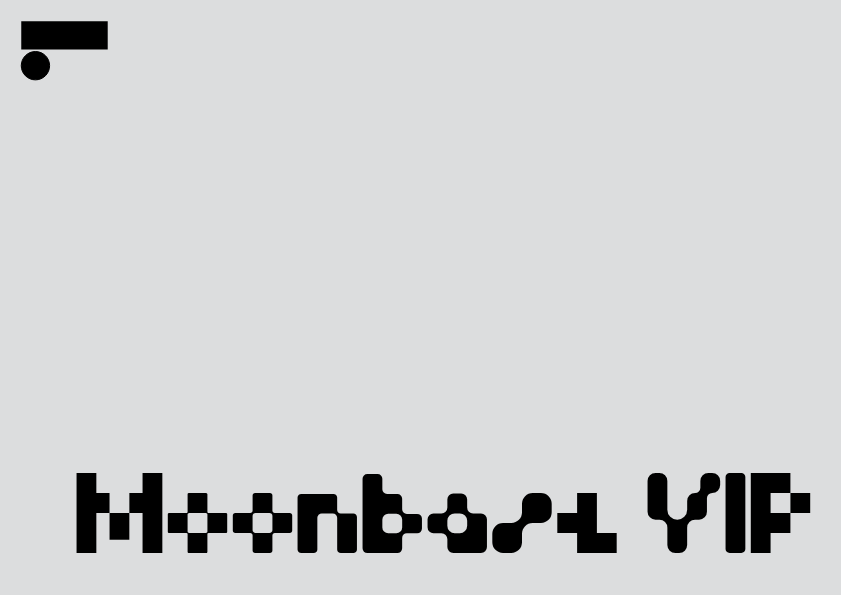
Moonbase
Cornel Windlin created Moonbase Alpha in response to an invitation by FUSE, Neville Brody and Jon Wozencroft’s experimental typographic publishing venture, in 1991. The theme of the issue was ‘(Dis-)information’, which Cornel applied to his own experience as a designer who found his work to be increasingly defined by the operating conditions and limitations of the information system he was using: the Apple Macintosh.
Highlighting the interdependencies of input and output in the interplay between designer and device, Cornel purposefully crashed the Adobe Type Manager, a piece of software tasked with optimising the appearance of PostScript fonts on screen. As a consequence, the cheap Apple StyleWriter printed the crudely pixelated screen rendering of a small-size font sample of Akzidenz Grotesk.
The information contained in the font file had been severely corrupted; the printouts were showing crude pixel compositions forming abstract patterns. After scanning them, Cornel redrew the square-pixel shapes, experimented with rounding the corners and soon arrived at his new typeface, which had been largely created by the (dis-)information system itself: a typeface that openly displayed its digital DNA.
Three decades later, Weichi He played the trick backwards, reducing Moonbase Alpha’s letter-shapes to the arrays of square-format pixels they once were. At the same time, he re-worked the actual typeface by making the curved corners more pronounced, resulting in fully circular shapes. Eventually, the two drawings were turned into a Variable Interpolated Product that re-tells the story of the creation of Moonbase Alpha: shifting between the crude pixel font that came out of the ill-fed printer and the rounded letter shapes which became an iconic mainstay of early 1990s techno culture.
It was none other than NASA who brought things full circle when they turned to Moonbase Alpha for the emblem of their 2021 Perseverance Mars Mission, thirty years after this experimental typeface, with a touch of retrofuturistic irony, had taken its name from a thrashy Sci-Fi TV series of the 1970s.
Cornel Windlin
(*1964) co-founded Lineto with Stephan Müller. He primarily designs type for use in his own work, such as LL Alpha Headline and LL Lutz Headline (1992), LL Gravur Condensed (1996), LL supermax (1999) and many more. A recipient of the Jan Tschichold Prize (1997) and the Swiss Grand Prix for Design (2007), Cornel created visual identities for Schauspielhaus Zürich, the Vitra Home Collection and TATE ETC. He runs his design practice and directs Lineto out of Zurich.
Weichi He
(*1991) received a BA from Pontifical University of Chile/PUC in 2013 and an MA in Type Design from École Cantonale d’Art de Lausanne/ECAL in 2020. He released Max Fett at ECAL Typefaces in 2020. Joining Lineto in 2021, Weichi developed new and variable approaches to the seminal LL Moonbase and to LL Asphalt, re-released as LL Pirelli (both 2021), as well as contributing the ‘Fill’ style to the playfully modular LL Tabletten (2022). His small family of eight varsity styles, LL Champion, was released in early 2024, while his variable reinterpretation of Oswald Cooper’s outstanding Cooper Black (1922), called Photonic, is on view at Linetomorrow.
Designed by Cornel Windlin (1991) and Weichi He (2021). Originally released by FUSE as Moonbase Alpha in 1992. Font engineering and mastering by Alphabet, Berlin.